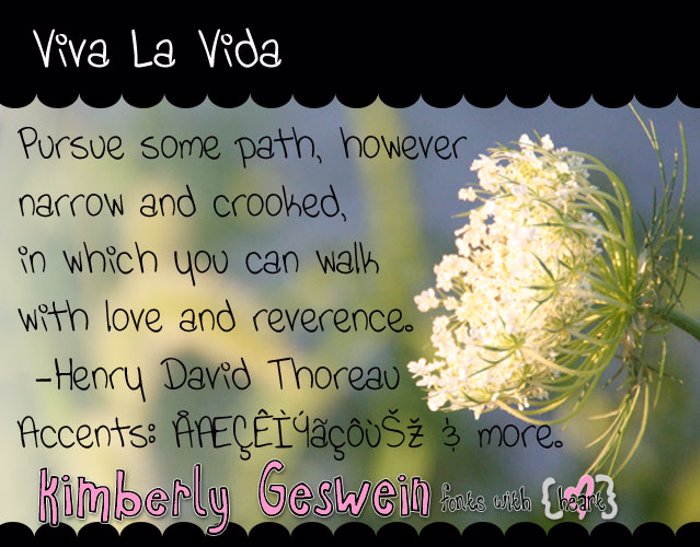
Viva La Vida Font
This is a great font :)
it looks like my friend's handwriting
This font is amazing!!!! Definitely one of my favorites. I'll be using this for all my schoolwork, presentations, etc... It's so fun and quirky 😄
LOL This looks just like my writing. I even asked Kimberly to make a font for me... never got a response after mailing her the sample... They're way similar. xD
@smileygurl - after looking through emails, this is definitely the font made from your sample! I wrote you back a few times, too, so I hope you were getting those responses! 😄 Hope you like the font!
You sure? They look like two different samples. I'll re e-mail you the sample.
I ? this font!! 😃
This font is amazing I love it!!!! :):)
And so, who named the font after the Coldplay song that inspired by a painting by a female Mexican artist called "Sanidas con leyendas: viva la vida?!"
For that, she's making fonts that have names after hit songs! That's a coincidence that the typographers should've done for those things!
Should she name the fonts after the opening and ending theme songs of the Japanese anime shows?!
Bit too cheery looking for my tastes, maybe that's just because I've listened to much to the depressing Coldplay song, lol xD Still an awesome font though